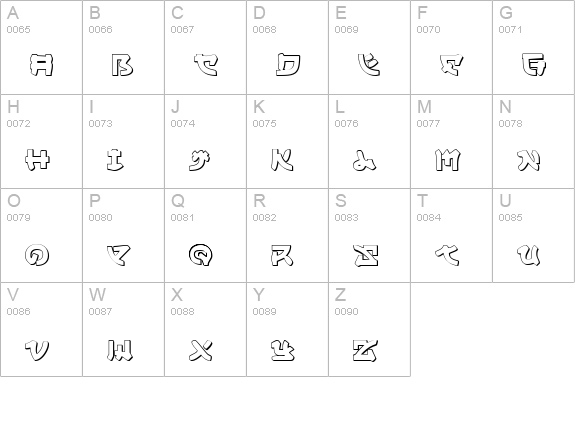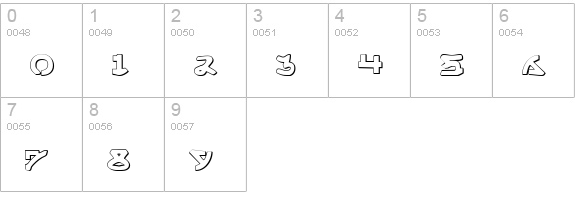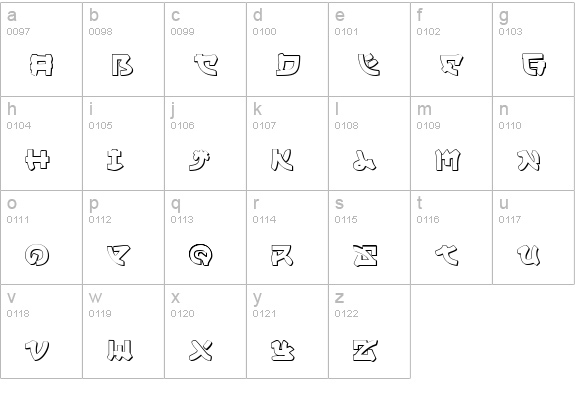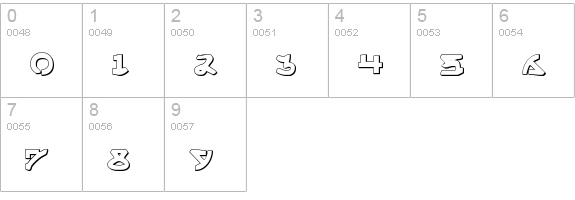
Yama Moto 3D Font Details
Introducing Yama Moto 3D font, a captivating and dynamic typeface that brings a modern and edgy flair to any design project. With its three-dimensional effect, Yama Moto 3D font effortlessly adds depth and dimension to your text, making it stand out in a crowd. This striking font is perfect for a variety of creative endeavors, from branding and advertising to posters and digital art. Its bold and futuristic appearance makes a strong visual impact, capturing attention and leaving a lasting impression. And the best part? Yama Moto 3D font is available for free download at FontsMarket.com. That's right, you can easily access this eye-catching font and incorporate it into your projects without any cost. So why wait? Elevate your designs with Yama Moto 3D font today and unleash your creativity like never before.